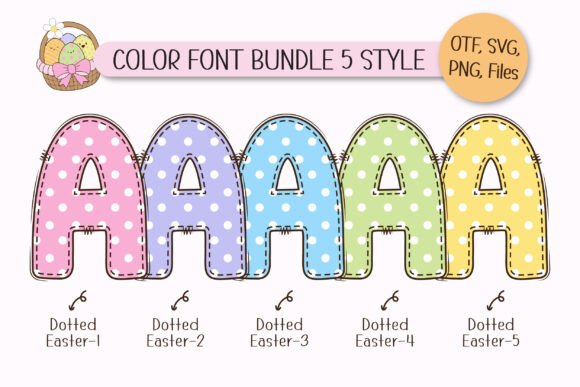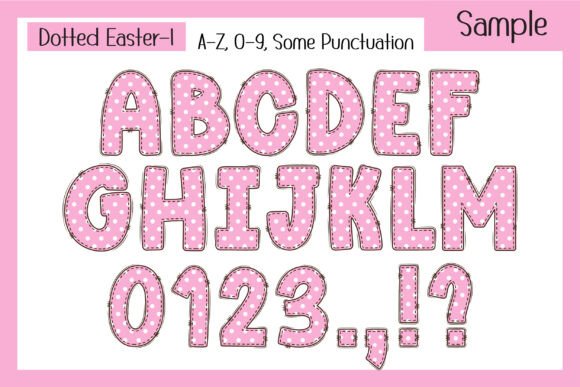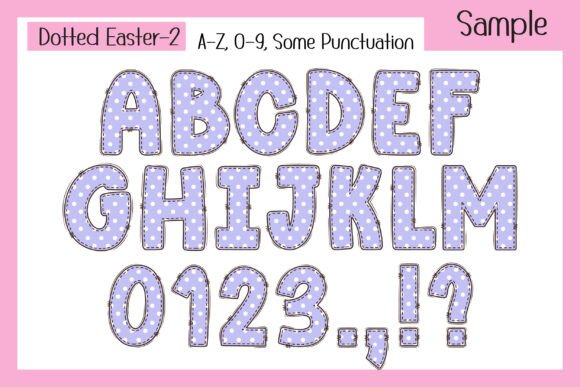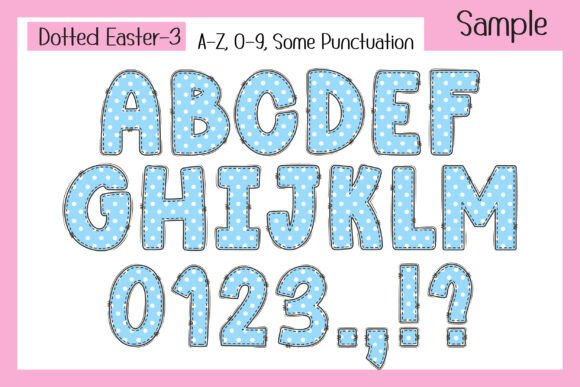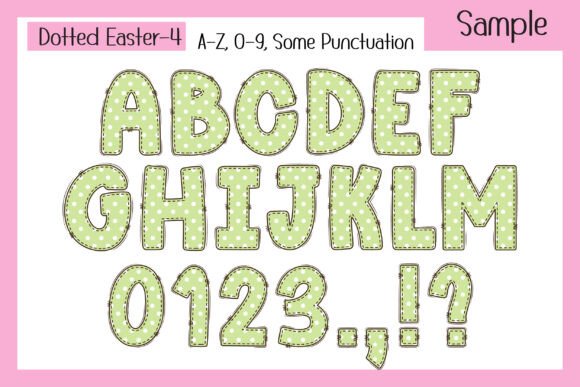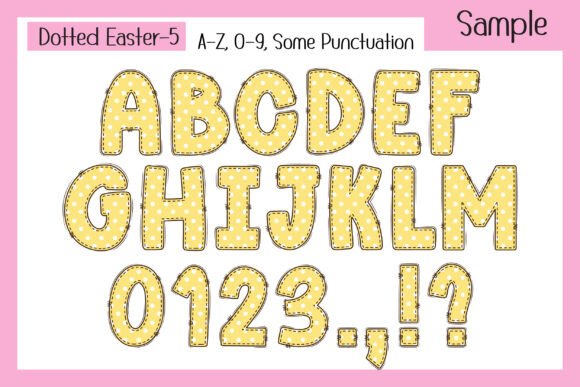
Introduction to Dotted Easter Font
Introducing “Dotted Easter” a delightful font that takes the classic dotted pattern of eggshells and transforms it into a bright and festive color font.
Designed with five vibrant colors to perfectly capture the joyful spirit of the Easter festival, this font is ideal for creating eye-catching Easter Day posters, Easter cards, quotes, T-shirts, custom names, DIY craft projects, party invitations, gift tags Plus, “Dotted Easter” includes 20 bonus matching doodles to further enhance your holiday designs and bring an extra dose of Easter cheer to every creation.